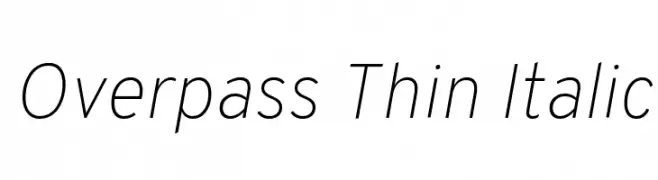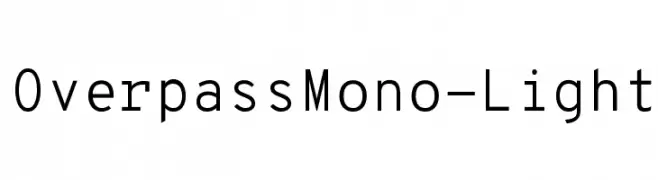
A sleek, modern, thin italic font with elegant proportions.
A bold, modern sans-serif typeface with clean lines and excellent readability.
A clean, modern sans-serif font with uniform strokes and excellent readability.
A bold, modern sans-serif font with clean lines and geometric shapes.
A modern, geometric sans-serif font with clean lines and balanced proportions.
A clean, modern typeface with a focus on readability and simplicity.
A thin, modern sans-serif font with clean lines and high legibility.
A clean, modern monospaced font with uniform spacing and clear legibility.
A clean, modern monospaced typeface with uniform character width and geometric structure.